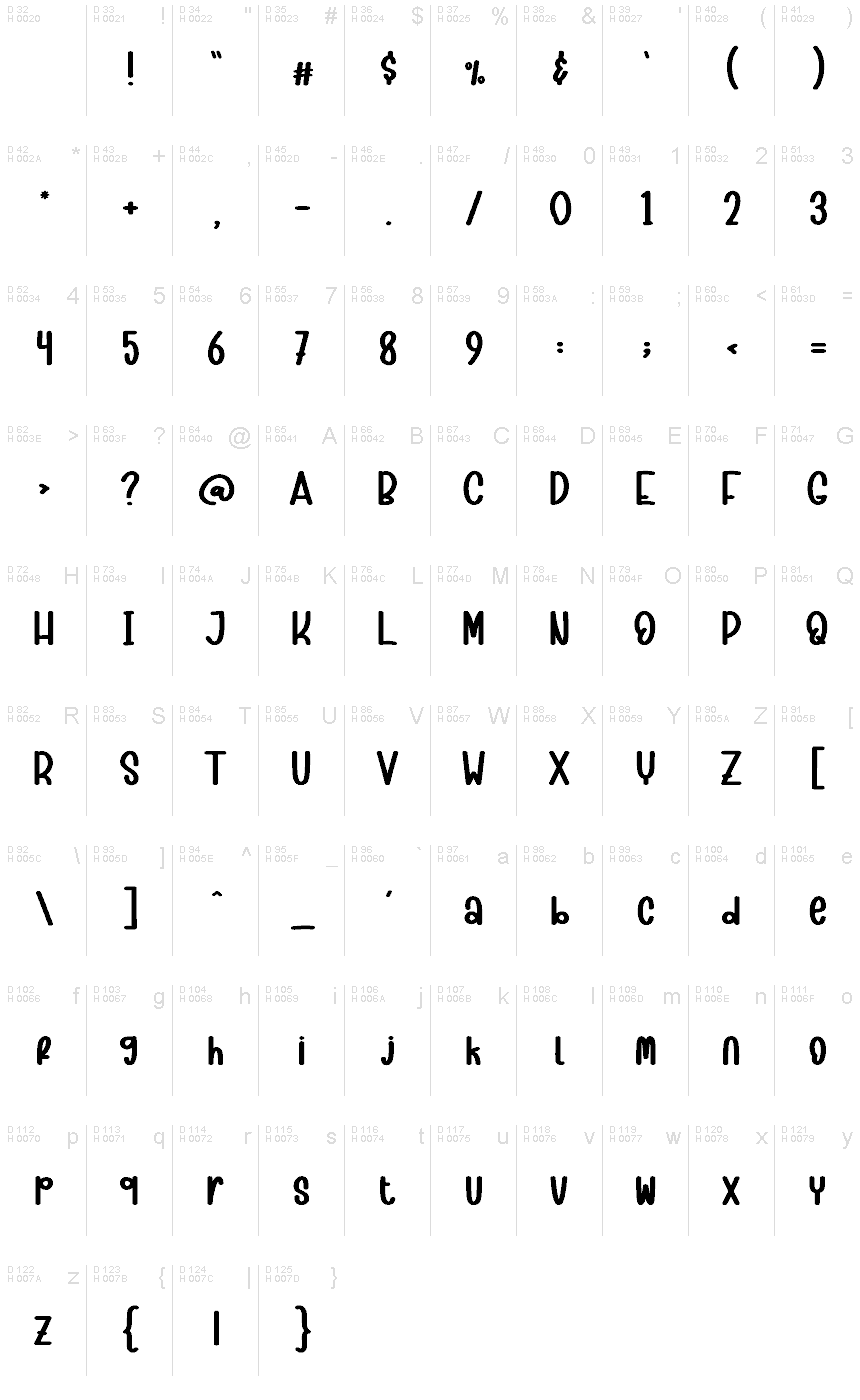
Ghost Office
Ghost Office font by Scratchones is a condensed handwritten font, with tall and slender characters. The simplicity of the letter design is balanced by its slight slant and bumpy playful paths. A charming yet ghostly feeling of mystery prevails when this typeface appears in print. Keywords to describe it would be organic, whimsical, casual, retro-inspired and expressive.